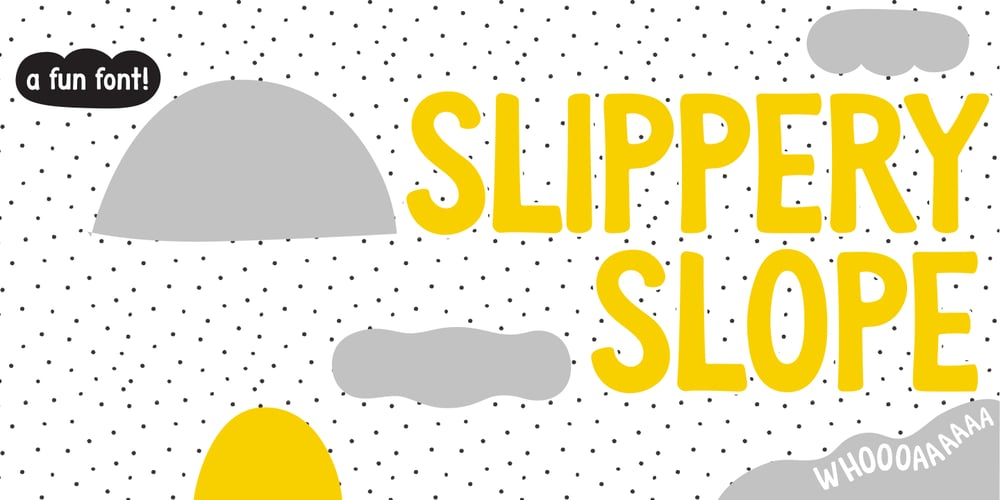
Slippery Slope
Slippery Slope font
Slippery Slope Font Family was designed by Ming Ong and published by Dear Sue. Slippery Slope contains 1 styles and family package options. Slippery Slope is a friendly, storybook font with a slight 70s vibe, that has the legibility of a clean sans serif combined with a subtle hand-drawn quality. A playful, whimsical font for books and stationery, posters, signage and product or packaging for kids and adults alike!